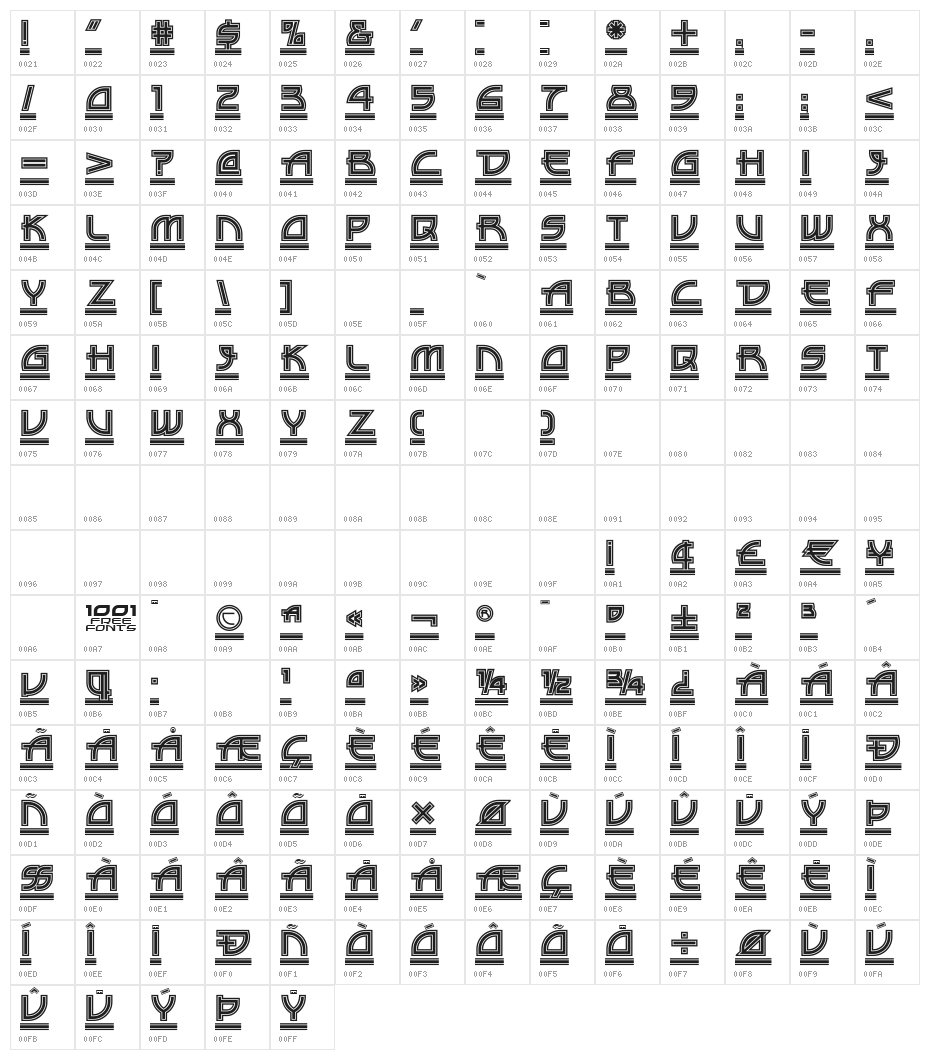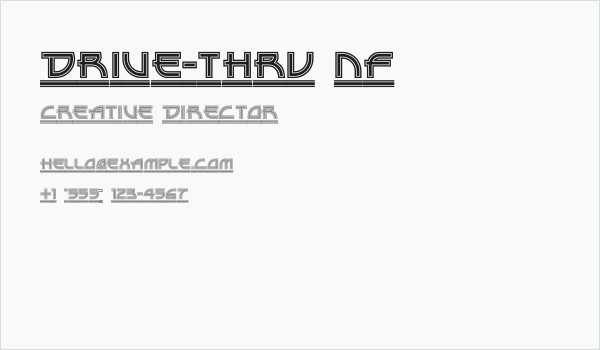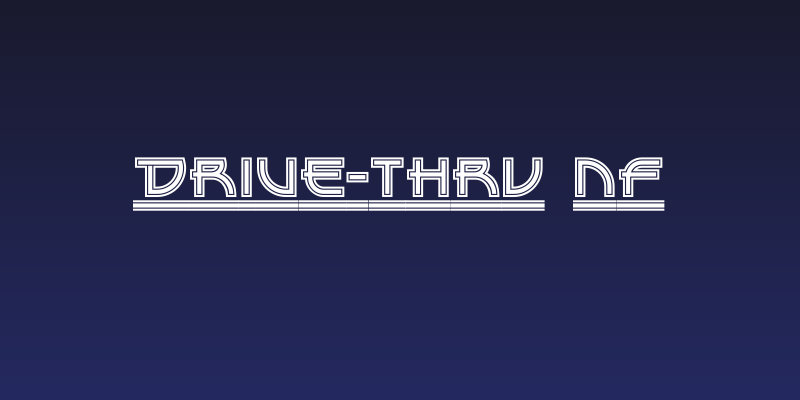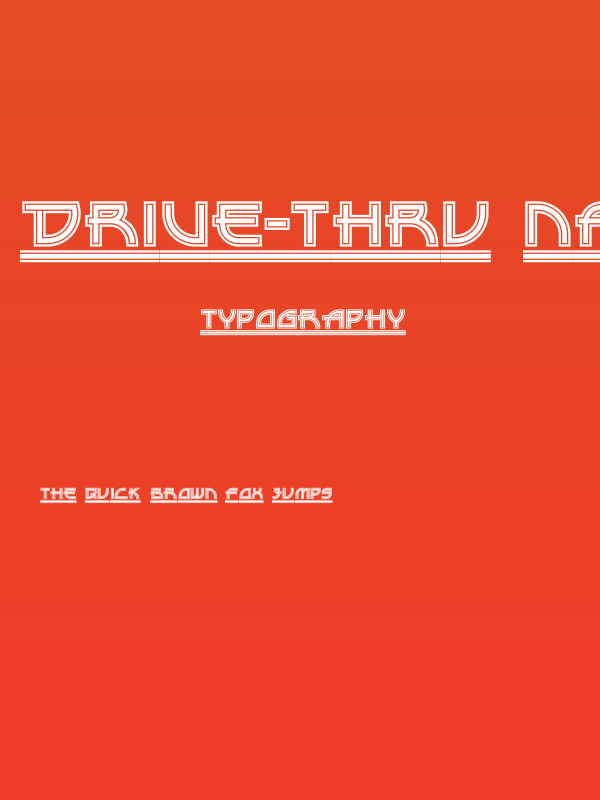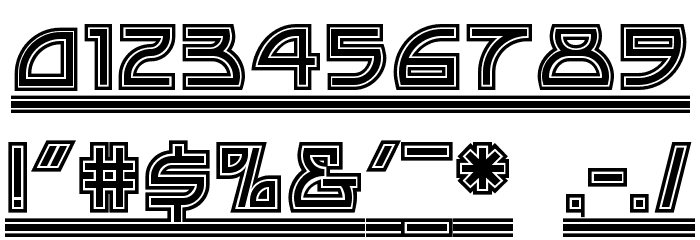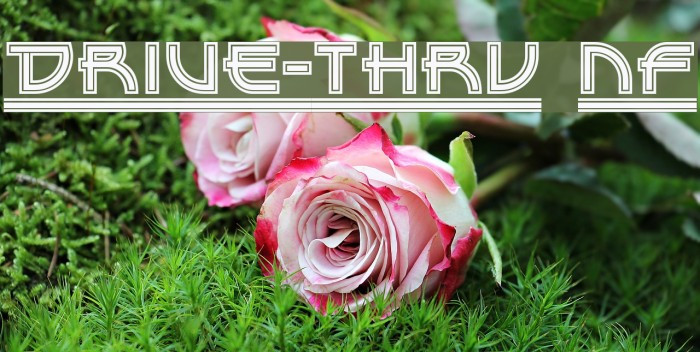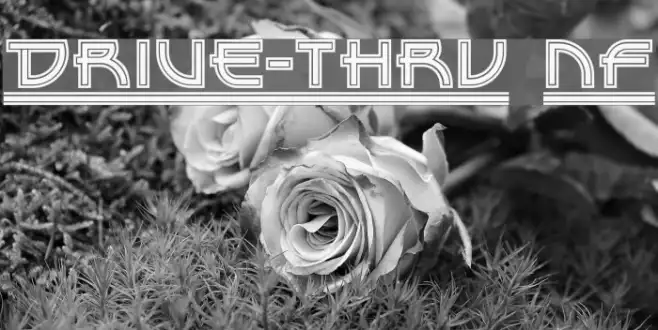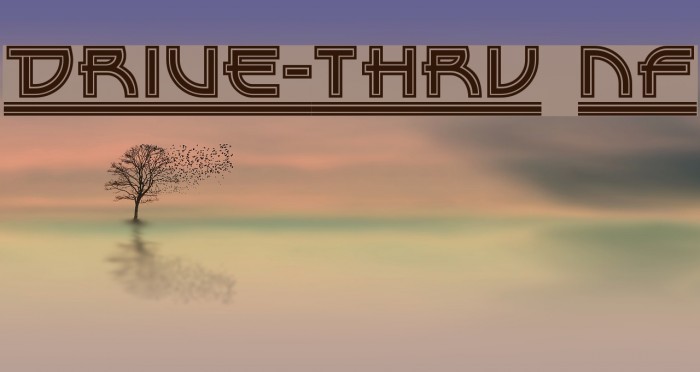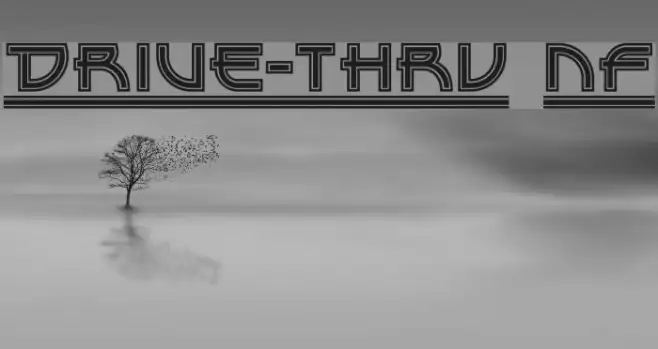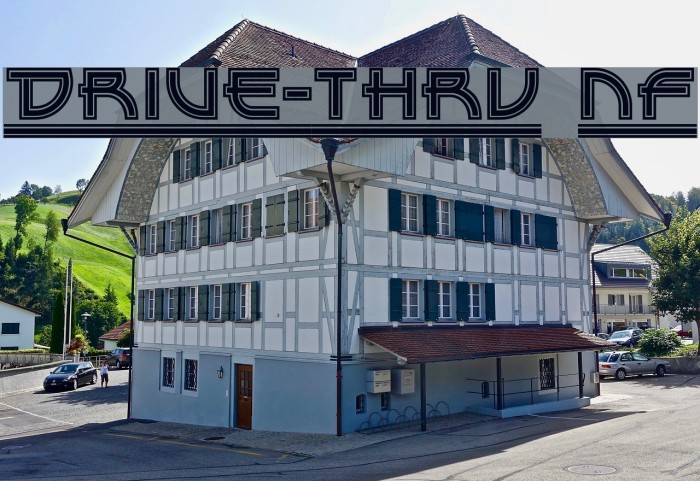
Drive-Thru NF Font
Drive-Thru NF Description
This font features a bold and geometric design with a distinct retro-futuristic vibe. The characters are outlined with multiple parallel lines, creating a layered effect that adds depth and dimension. The uppercase letters are particularly striking, with angular shapes and sharp edges that give them a dynamic and energetic appearance. The lowercase letters maintain the same style, ensuring consistency across the typeface. Numbers and special characters are designed with the same attention to detail, making them stand out in any composition. The overall look is both modern and nostalgic, reminiscent of vintage signage and futuristic displays.
| Overall Style | Retro-Futuristic |
| Proposed Projects | Ideal for retro-themed posters, futuristic branding, video game titles, and eye-catching headlines. |